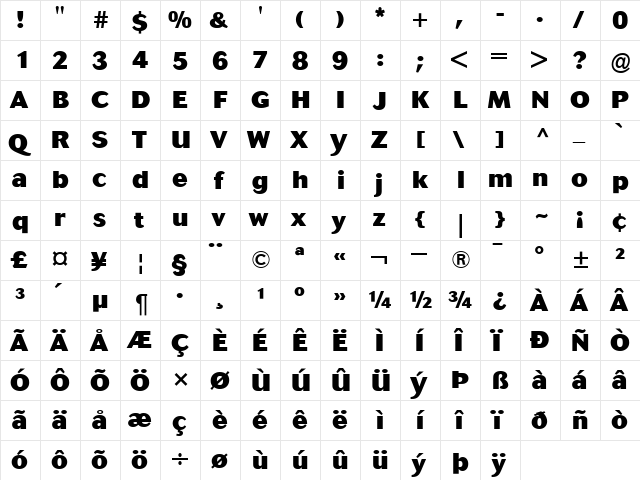
Cosmos-ExtraBold Extra Bold
Design Context for Cosmos-ExtraBold Typeface
Cosmos-ExtraBold is a composed and adaptable typeface that performs quietly and consistently across a wide range of design contexts. Its bold stroke weight gives it real presence on the page.
Pro Tip: Use Cosmos-ExtraBold in both headline and body roles to test its range before committing to a single application.